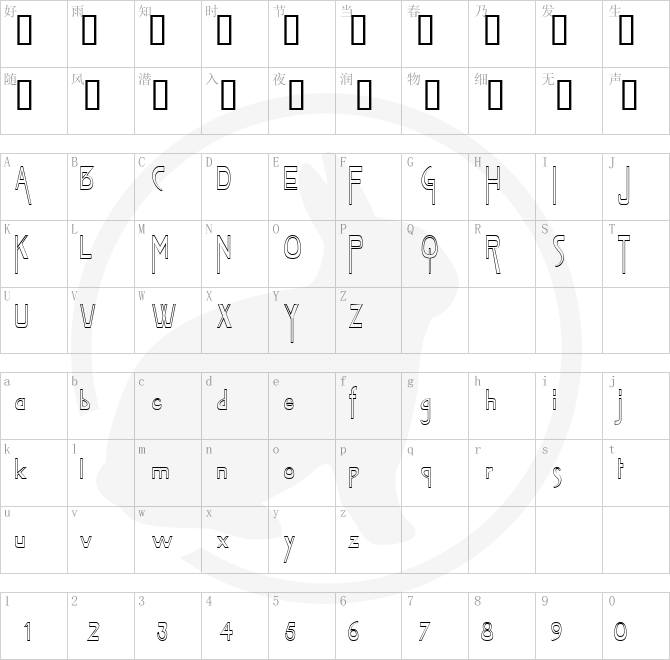
- Font Name:Tablet-Hollow-Condensed
Tablet-Hollow-Condensed-Normal.ttf is a very beautiful artistic font, Tablet-Hollow-Condensed-Normal.ttf is widely used in the design and printing of various books and pictures,Tablet-Hollow-Condensed-Normal.ttf has a strong visual impact,Tablet-Hollow-Condensed-Normal.ttf is a commonly used font in newspapers, magazines and books, and is used in posters, e-commerce Poster design, store design, logo design, font design and other fields.Tablet-Hollow-Condensed-Normal.